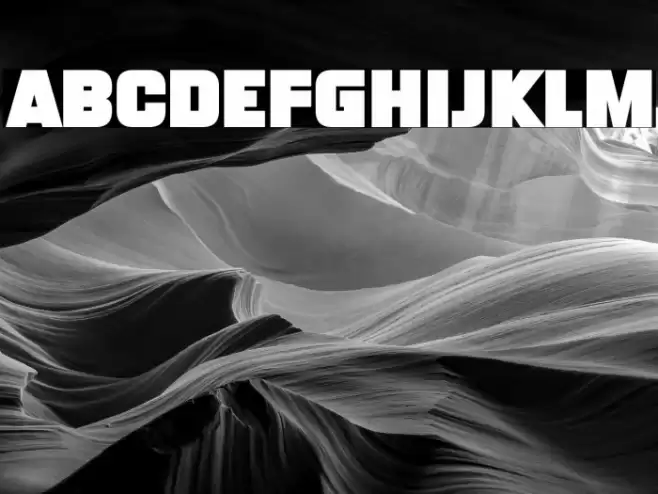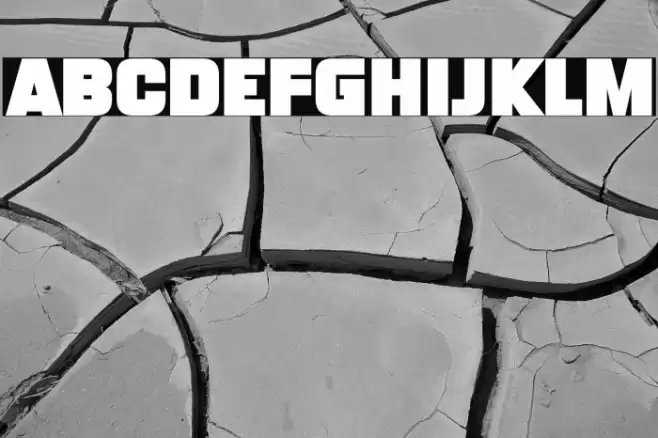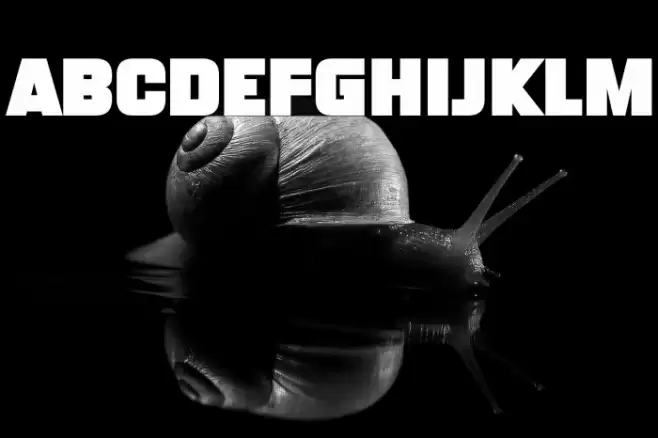
Monster Bites Font
Monster Bites Description
This bold and impactful font features thick, blocky letters that convey strength and assertiveness. The uppercase and lowercase letters maintain a consistent weight, creating a uniform appearance. The numbers and special characters are designed with the same boldness, ensuring a cohesive look across all text elements. The font's geometric shapes and sharp edges give it a modern and industrial feel, making it suitable for projects that require a strong visual presence. Its high contrast in stroke thickness enhances readability and adds to its striking appearance.
A bold, blocky font with a modern, industrial style from Uncategorized fonts.
- Font: Monster Bites
- Proposed Projects: Ideal for headlines, posters, logos, and branding materials that require a strong, impactful presence.